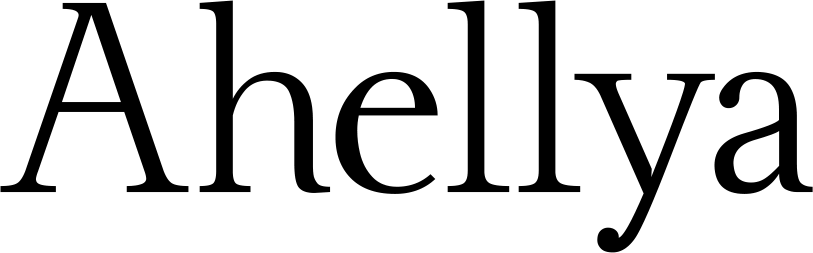
Ahellya Font
Looking for a fashionable and stunning serif font?! Ahellya is assessable in two manners that are brilliant for achieving the fantastic typography you would like to create. The professional, formal, established characters have serif edges, making them confident and reliable.
Mixed case alphabetical letters, numbers, and punctuations are provided, which will come into use when developing your text. You will notice its real beauty in Books, magazines, articles, wedding cards, and wherever you’re planning to carry out a classical look.